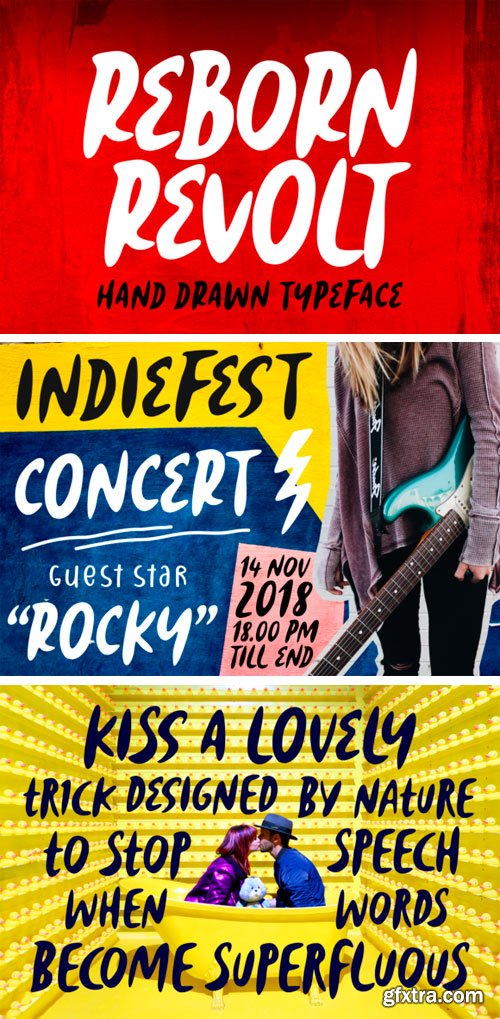
Reborn Revolt Font
The Reborn Revolt is a bold typeface. It’s handwritten letters have a great readability and will add a striking look to your designs, while also giving it a playful touch.